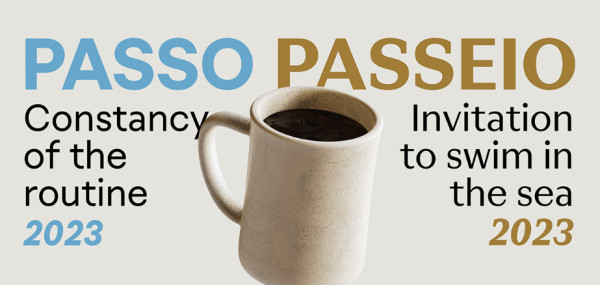
Passo And Passeio Font
Passo And Passeio Font is a sans-serif font family that combines simplicity with elegance. To speed up the pace or slow down to stroll, there is always a time and a place. They are opposite but not antagonistic designs: they share the same construction and vertical metrics, that is, they can be combined and mixed to reflect the roller coaster that is life.